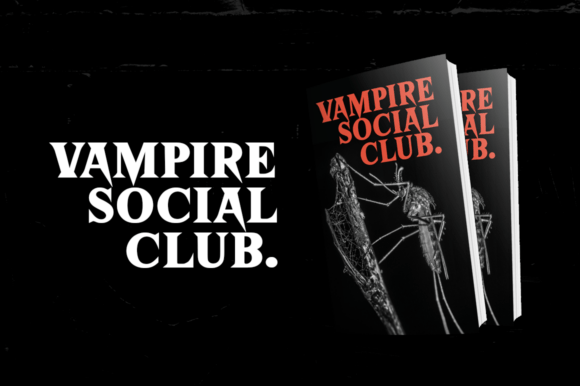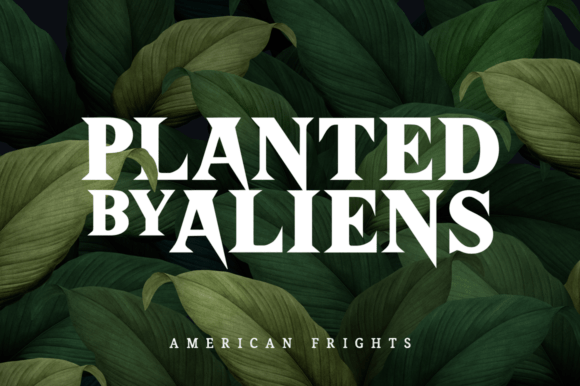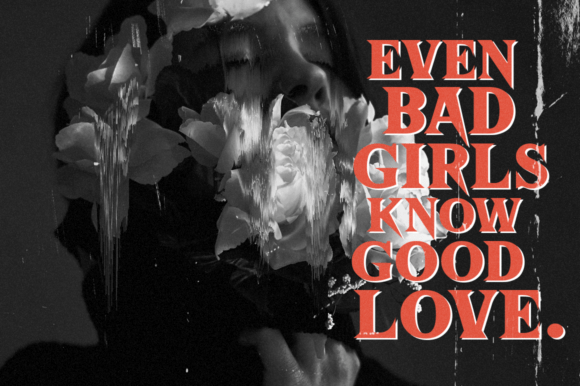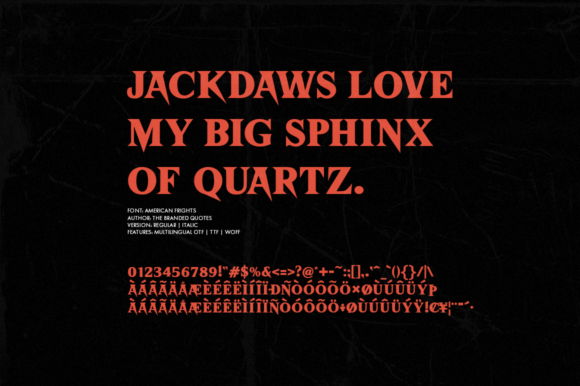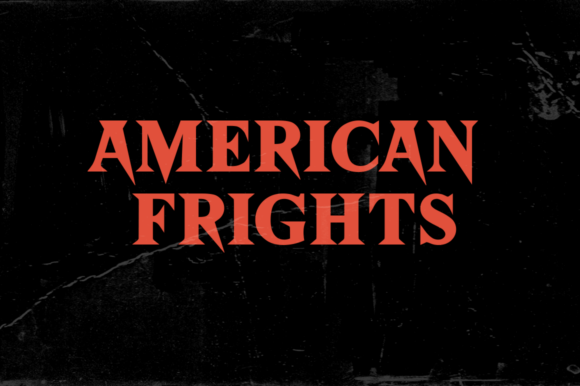
Unleash Your Creativity with American Frights Font
Are you tired of using the same old fonts for your creative projects? Look no further! American Frights Font is an incredibly unique display font that is sure to take your designs to the next level. Masterfully designed to become a true favorite, this font has the potential to bring each of your creative ideas to the highest level.
What Makes American Frights Font So Special?
American Frights Font is a one-of-a-kind display font that boasts a distinctive and eye-catching style. Its unique design elements make it perfect for a wide range of creative projects, from bold headlines to eye-catching posters, and from crafty DIY projects to professional branding materials.
One of the standout features of American Frights Font is its versatility. Whether you’re looking to create a spooky and eerie atmosphere or a fun and playful vibe, this font can do it all. Its bold and chunky lettering makes it perfect for creating attention-grabbing headlines, while its elegant and refined lines make it suitable for more sophisticated designs.
American Frights Font is a must-have for designers and crafters looking to add a touch of personality to their work. Whether you’re a professional graphic designer or a DIY enthusiast, this font is sure to inspire your creativity and take your projects to new heights.
For designers, American Frights Font offers a wide range of possibilities. Use it to create stunning posters, flyers, and brochures that grab attention and leave a lasting impression. Its unique style makes it perfect for branding materials, such as logos, business cards, and letterheads.
For crafters, American Frights Font is a dream come true. Use it to create handmade cards, gift tags, and other paper crafts that are sure to impress. Its bold and playful style makes it perfect for DIY projects, such as scrapbooking, journaling, and mixed media art.
Key Features of American Frights Font
- Unique and eye-catching design: American Frights Font boasts a distinctive and bold style that is sure to grab attention.
- Versatile and adaptable: Use it for a wide range of creative projects, from bold headlines to elegant designs.
- Perfect for designers and crafters: Whether you’re a professional designer or a DIY enthusiast, this font is sure to inspire your creativity.
Tips for Using American Frights Font
To get the most out of American Frights Font, here are a few tips to keep in mind:
- Experiment with different sizes and colors: American Frights Font looks great in a variety of sizes and colors, so don’t be afraid to experiment and find the perfect combination for your project.
- Pair it with other fonts: American Frights Font pairs well with a range of other fonts, so try combining it with different styles to create a unique and eye-catching design.
- Use it to create contrast: American Frights Font is perfect for creating contrast in your designs. Use it to highlight important information or to create a focal point in your project.
American Frights Font is an incredibly unique and versatile display font that is sure to take your creative projects to the next level. Its bold and eye-catching style makes it perfect for a wide range of designs, from bold headlines to elegant branding materials. Whether you’re a designer or a crafter, this font is a must-have for anyone looking to add a touch of personality to their work. So why wait? Download American Frights Font today and unleash your creativity!